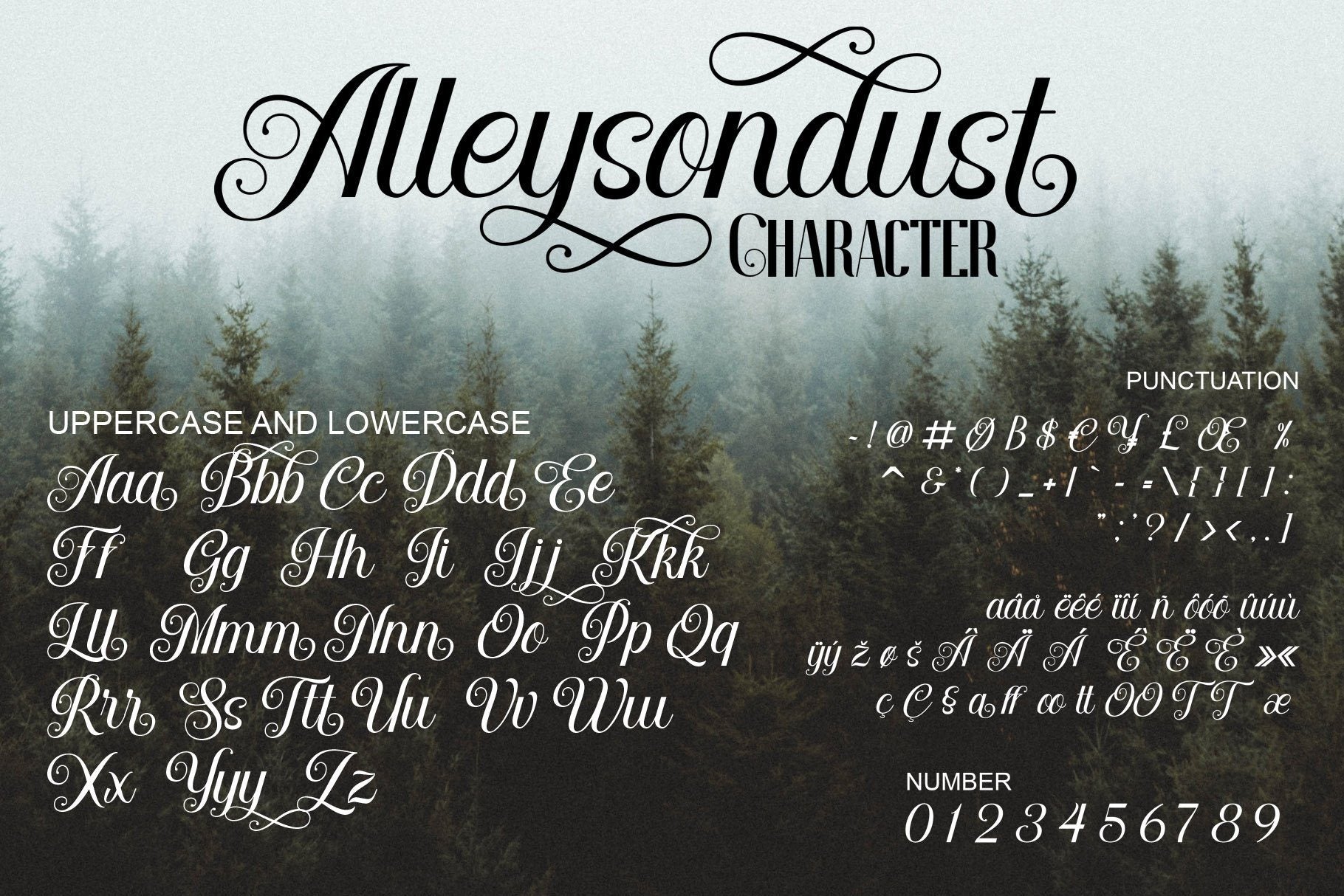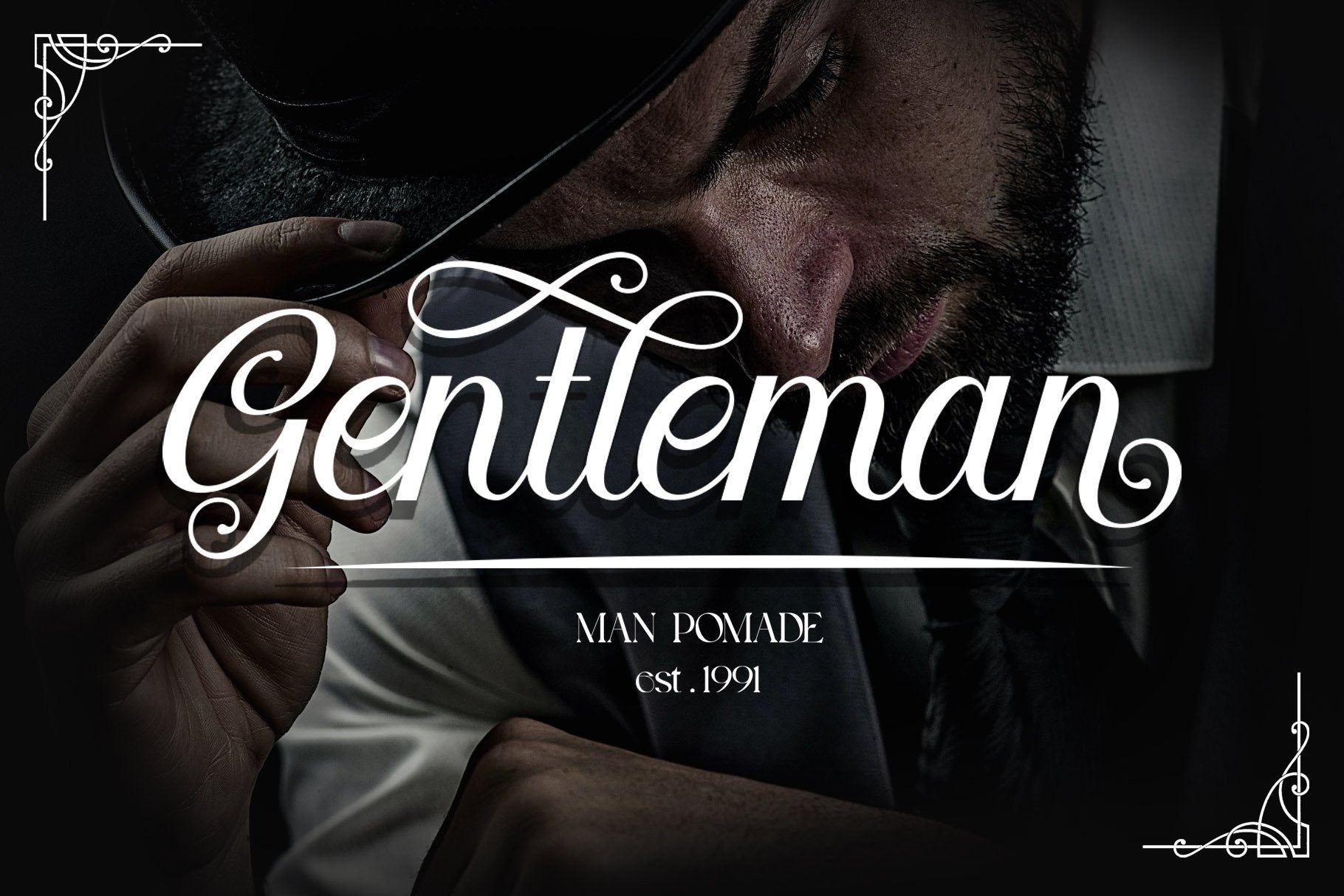
**Allysondust Font** This pair was inspired by beautiful invitation card design that i saw on some place, It was crafted by hand specially to add natural handmade feeling in its brand identity than i make it clean with pentool. **Opentype features** Allysondust font has 209 character set included Allysondust Font is very good looking in logo, labels, product packaging, invitations, advertising and others. **What includes** •             Allysondust TTF file •             Allysondust OTF file •             Allysondust WOFF file •             Multilingual support (Western European characters). This fonts works with folowing languages: Afrikaans, Albanian, Asu, Basque, Bemba, Bena, Chiga, Cornish, Danish, English, Estonian, Filipino, Finnish, French, Friulian, Galician, German, Gusii, Indonesian, Irish, Italian, Kabuverdianu, Kalenjin, Kinyarwanda, Low German, Luo, Luxembourgish, Luyia, Machame, Makhuwa-Meetto, Makonde, Malagasy, Malay, Manx, Morisyen, North Ndebele, Norwegian Bokmål, Norwegian Nynorsk, Nyankole, Oromo, Portuguese, Romansh, Rombo, Rundi, Rwa, Samburu, Sango, Sangu, Scottish Gaelic, Sena, Shambala, Shona, Soga, Somali, Spanish, Swahili, Swedish, Swiss German, Taita, Teso, Vunjo, Zulu Thank you for using this font. LS